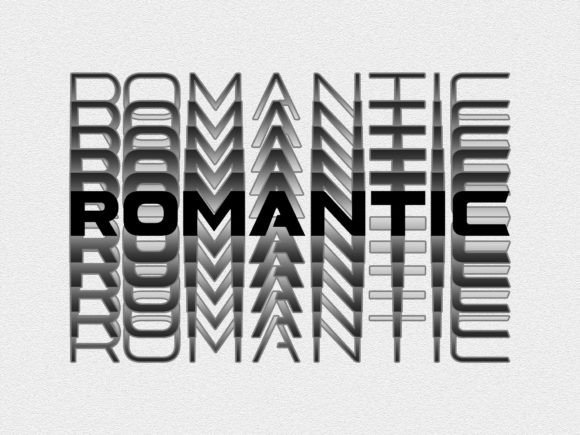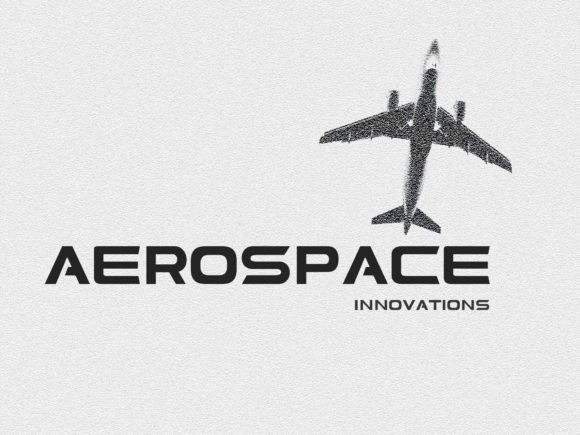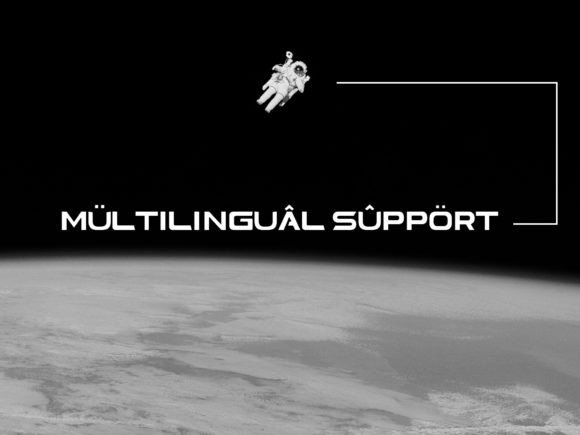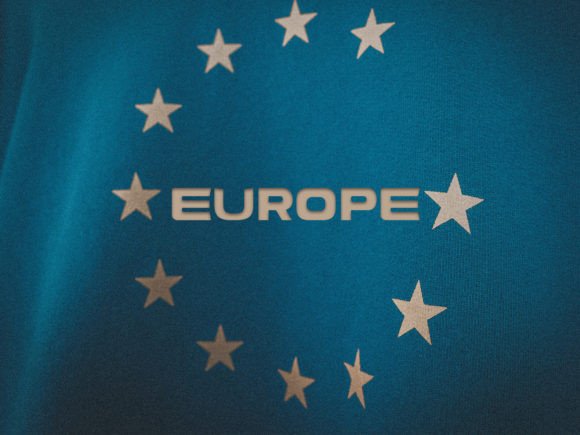
The Cosmic Typographic Adventure
Do you remember the moment when you stumbled upon the perfect font for your design project? It’s that ‘aha’ moment when everything falls into place, and your creative vision starts to take shape. For designers, finding the right typography can be a challenge, but it’s also an opportunity to elevate your work to the next level. That’s where the Galatica Family Font comes in – a versatile and modern sans serif typeface that’s sure to revolutionize your design game.
This expanded font family boasts 6 distinct styles, ranging from thin to black, each with its own unique charm. With its futuristic and thick aesthetic, the Galatica Family Font is perfect for a wide range of designs, from futuristic interfaces to minimalist branding. Its simplicity and clarity make it an invaluable asset for designers seeking to create visually stunning and effective designs.
Galatica Family Font Key Features
- Unique Characteristics: The font features a unique blend of futuristic and organic elements, with distinctive geometric shapes and flowing lines that give it a dynamic and modern feel.
- Kerning and Ligatures: The font includes advanced kerning and ligature features, ensuring smooth and even spacing between characters and optimal readability in both digital and print media.
Galatica Family Font Review
Overall, I’d say the Galatica Family Font is a solid, but not spectacular, choice for designers looking for a versatile font family.
- ✨ Clean and modern design aesthetic that works well for digital and print materials
- ✨ Good range of weights and styles, making it suitable for a variety of design applications
- ✨ Well-spaced and legible, even at smaller font sizes
- ⚠️ Limited language support, which may be a concern for designers working with non-English scripts
- ⚠️ Some users may find the font a bit too minimalist, lacking in character and personality
- ⚠️ Not ideal for use in situations where a more formal or traditional tone is required
In conclusion, while the Galatica Family Font is a good choice for designers looking for a modern and versatile font family, it may not be the best fit for every project. With a bit more attention to language support and character development, this font has the potential to be truly great.
The Galatica Family Font is ideal for use in designs that require a unique and eye-catching aesthetic. It’s perfect for branding, marketing materials, and other visual communications. To get the most out of the font, use it in bold combinations and pair it with contrasting colors. Experiment with different font sizes and styles to create visual interest.